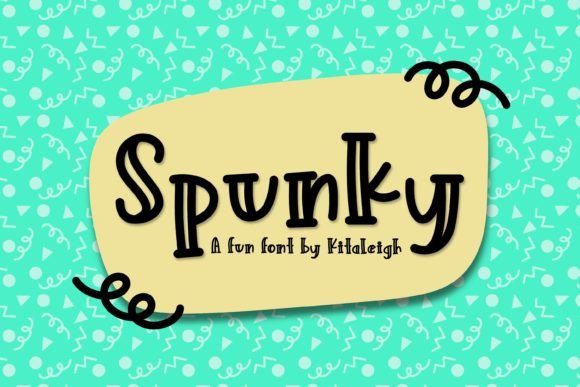
Introducing Spunky Font: The Ultimate Display Font for Creative Projects
Are you looking for a font that can add a dash of energy and personality to your creative projects? Look no further than Spunky Font, a fun and lively display font designed to bring a whimsical touch to your designs. With its playful and bold characters, Spunky is perfect for a wide range of applications, from children’s books and event posters to greeting cards and branding.
The Characteristics of Spunky Font
Spunky Font is characterized by its rounded, dynamic strokes that offer a cheerful and vibrant vibe. The font’s smooth and flowing style ensures readability while maintaining a sense of joy and spontaneity. The bold and playful characters are designed to stand out in any context, making it ideal for designs that need a bit of personality.
One of the key features of Spunky Font is its quirky yet balanced design. The font’s unique and playful style allows it to stand out in any context while still being approachable and friendly. This makes it perfect for designs that need to appeal to a wide range of audiences, from children to adults.
The Versatility of Spunky Font
Spunky Font is a versatile font that includes uppercase and lowercase letters, numbers, punctuation, and a variety of multilingual characters. This makes it perfect for use in different languages and applications. Whether you’re designing a children’s book, an event poster, or a greeting card, Spunky Font is the perfect choice.
The font’s versatility extends to its use in various design contexts. Spunky Font can be used for:
- Children’s books: Add a playful touch to your children’s book with Spunky Font’s bold and cheerful characters.
- Event posters: Create eye-catching event posters with Spunky Font’s dynamic and vibrant style.
- Greeting cards: Add a personal touch to your greeting cards with Spunky Font’s playful and friendly design.
- Branding: Use Spunky Font to create a unique and memorable brand identity.
- Packaging: Add a pop of color and personality to your packaging with Spunky Font’s bold and playful characters.
The Benefits of Using Spunky Font
There are many benefits to using Spunky Font in your creative projects. Some of the key benefits include:
- Unique and playful style: Spunky Font’s unique and playful style allows it to stand out in any context.
- Improved readability: The font’s smooth and flowing style ensures readability while maintaining a sense of joy and spontaneity.
- Versatility: Spunky Font includes uppercase and lowercase letters, numbers, punctuation, and a variety of multilingual characters, making it perfect for use in different languages and applications.
- Time-saving: With Spunky Font, you can create professional-looking designs in a fraction of the time it would take with other fonts.
How to Use Spunky Font Effectively
To get the most out of Spunky Font, here are some tips for using it effectively:
- Use it for headlines and titles: Spunky Font is perfect for headlines and titles, where its bold and playful characters can really make an impact.
- Pair it with other fonts: Spunky Font can be paired with other fonts to create a unique and interesting design.
- Experiment with different colors: Spunky Font looks great in a variety of colors, so don’t be afraid to experiment and find the perfect color for your design.
- Use it consistently: To create a cohesive design, use Spunky Font consistently throughout your project.
In conclusion, Spunky Font is a fun and lively display font that is perfect for creative projects that need a whimsical touch. With its playful and bold characters, Spunky Font is ideal for a wide range of applications, from children’s books and event posters to greeting cards and branding. Its smooth and flowing style ensures readability while maintaining a sense of joy and spontaneity, making it a great choice for designers who want to add a bit of personality to their designs.
FAQs About Spunky Font
Here are some frequently asked questions about Spunky Font:
- What is Spunky Font?: Spunky Font is a fun and lively display font designed to bring energy and personality to your creative projects.
- What is Spunky Font used for?: Spunky Font is perfect for a wide range of applications, including children’s books, event posters, greeting cards, branding, and packaging.
- Is Spunky Font easy to read?: Yes, Spunky Font’s smooth and flowing style ensures readability while maintaining a sense of joy and spontaneity.